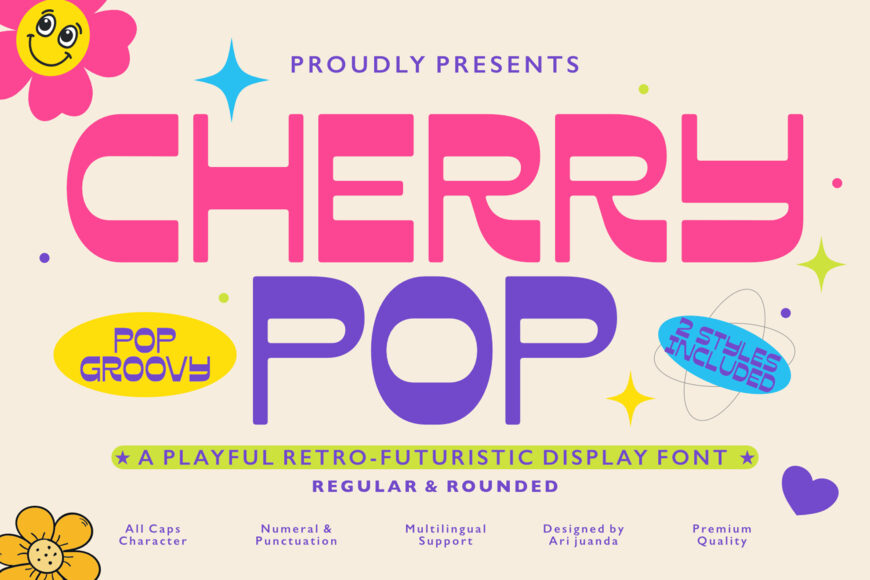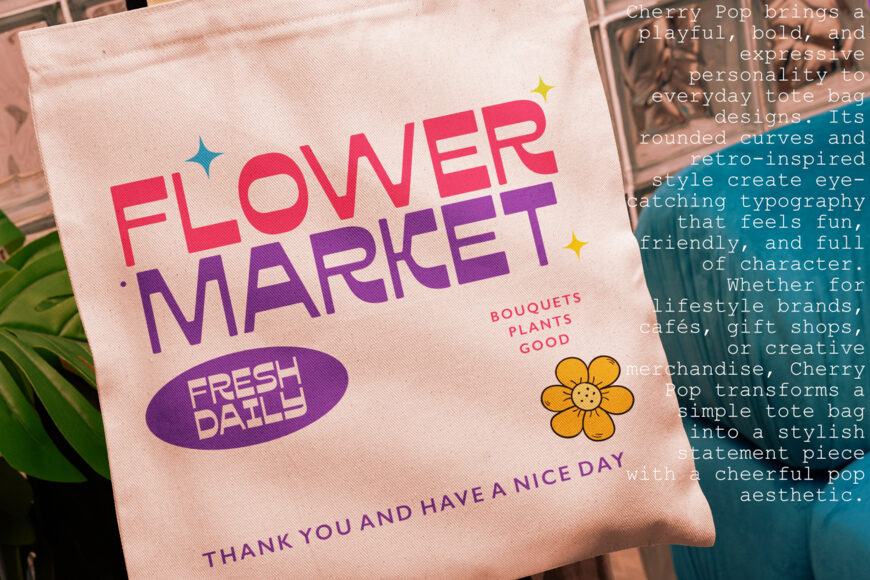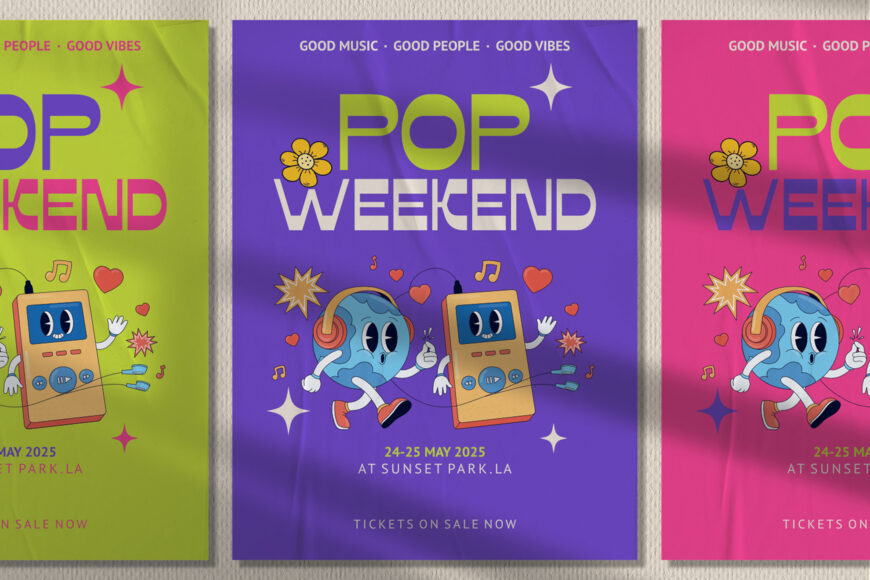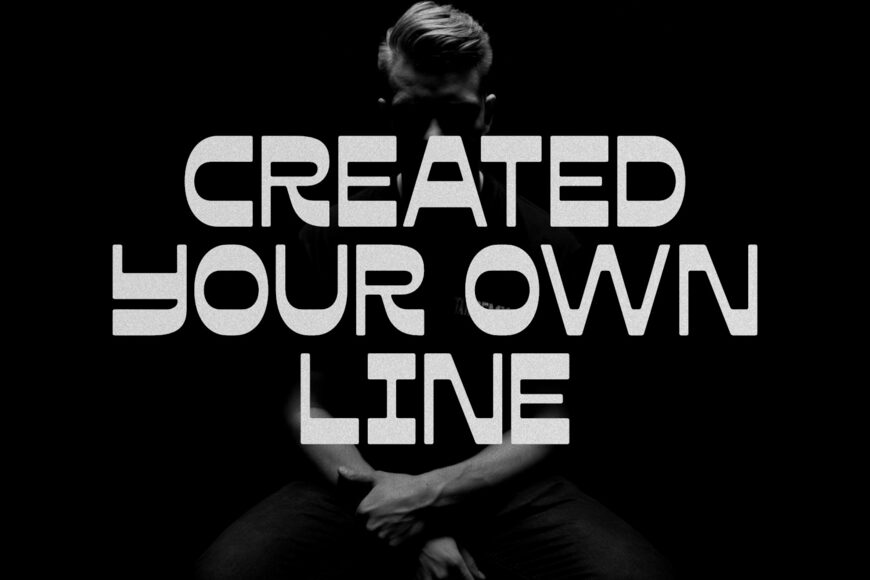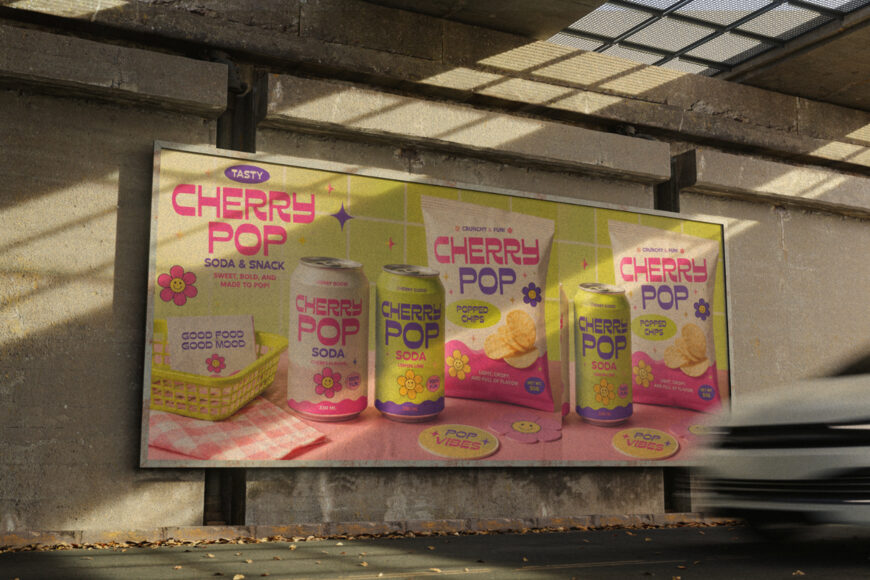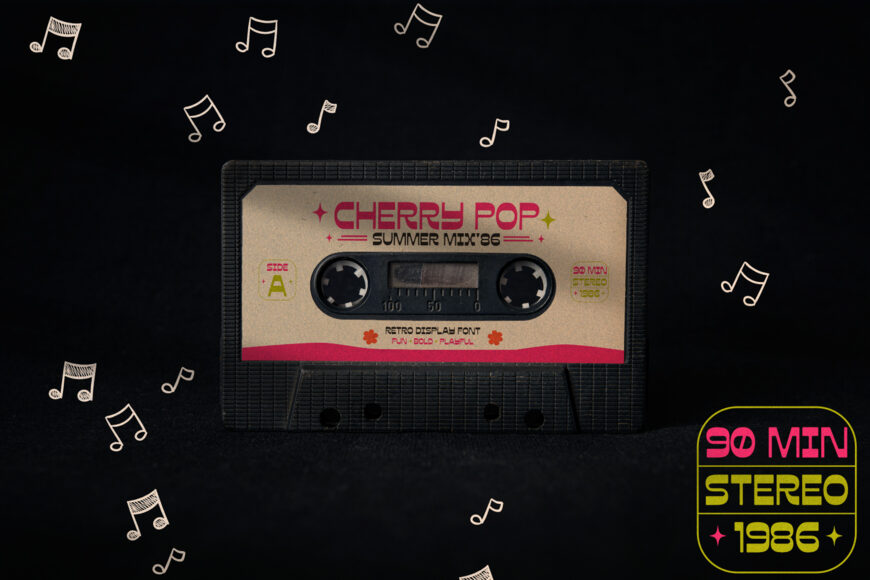
Meet Cherry Pop, a bold and playful display font inspired by the colorful energy of retro pop culture and futuristic Y2K aesthetics. Designed with smooth rounded corners and clean geometric shapes, Cherry Pop instantly brings a fun, cheerful personality to every design.
Whether you’re creating vibrant branding, eye-catching posters, stylish packaging, trendy logos, or social media graphics, Cherry Pop delivers a distinctive look that’s impossible to ignore. To give you more flexibility, Cherry Pop comes with 2 styles—Regular and Rounded—allowing you to easily switch between a sharper geometric feel or a softer, friendlier appearance.